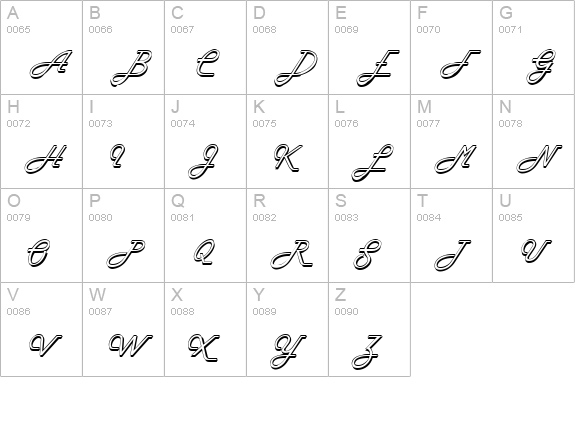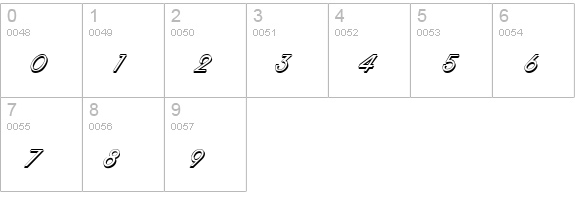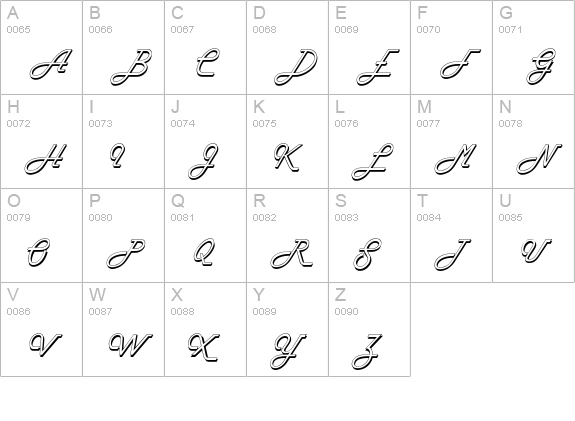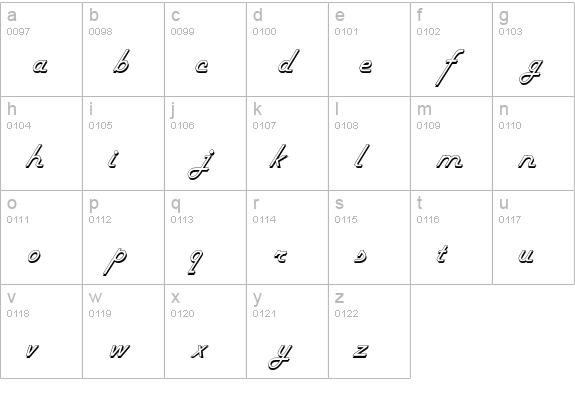
Halo Italic is a distinctive, italic variant in the Halo typeface family \xE2\x80\x94 well suited to design and typography projects.
Halo Italic font is a stunning and stylish typeface that exudes elegance and sophistication. Its sleek and slanted design adds a touch of modernity to any project, making it perfect for everything from logos to headlines. With its smooth curves and unique letterforms, Halo Italic font effortlessly captures attention and leaves a lasting impression. Its bold and confident appearance makes it ideal for fashion, beauty, and luxury brands, as well as any design that calls for a touch of glamour. But what sets Halo Italic font apart is not just its striking aesthetics, but also its availability. This incredible font is not only visually captivating, but it is also freely available for download at FontsMarket.com. That's right, you can enhance your design projects with this exceptional font without spending a single penny. Whether you're a professional designer looking to add a touch of sophistication to your work or a hobbyist seeking to elevate your creative projects, Halo Italic font is the perfect choice. Its versatility and timeless beauty make it suitable for a wide range of applications, from print materials to digital designs. Don't miss out on the opportunity to enhance your projects with this remarkable font. Download Halo Italic font today from FontsMarket.com and experience the power of free elegance at your fingertips.